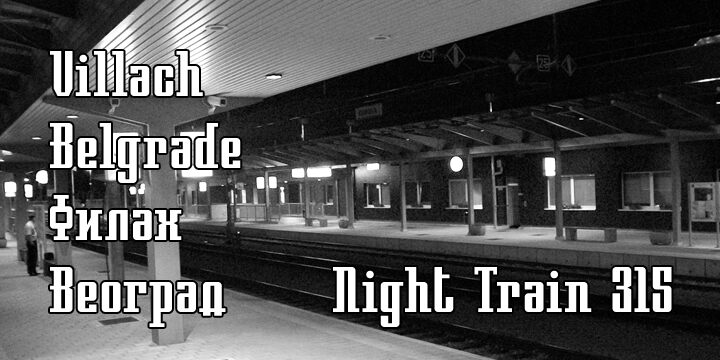
Night Train 315 by Frederic Rich is a free ultra-condensed display serif with the force of vintage poster lettering. Broad vertical strokes fill its narrow letters, joined by small squared serifs and sharp cut-ins. The silhouette is dense and severe.
Vintage industrial graphics are its clearest territory, especially music posters and event signage. It can also give album covers and apparel a tough, mechanical edge through its compressed proportions. Across these uses, the repeated uprights turn words into a striped graphic element.